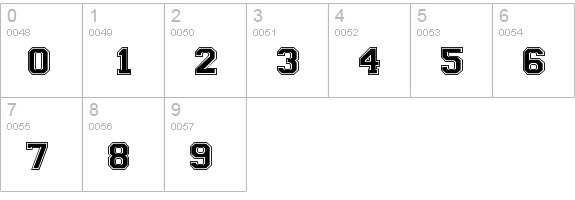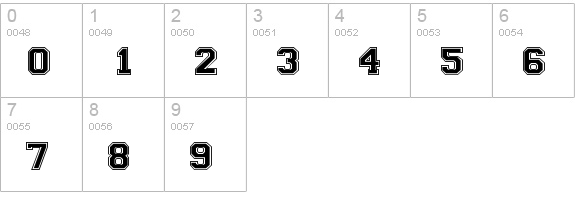
The Varsity font is a bold and dynamic typeface that exudes a sense of youthful energy and sporty flair. Its distinctive letterforms are reminiscent of classic varsity lettering, making it the perfect choice for projects related to sports, team spirit, and school pride. With its strong and commanding presence, Varsity font adds a touch of athleticism and professionalism to any design. What makes the Varsity font even more appealing is the fact that it is freely available to download at FontsMarket.com. This means that designers, students, and enthusiasts can enjoy the benefits of this remarkable font without any cost or restrictions. Whether you're working on a school project, creating sports-themed graphics, or designing a logo for a sports team, Varsity font is a valuable asset that will make your work stand out. Featuring clean lines, sharp edges, and bold strokes, Varsity font effortlessly captures attention and conveys a sense of strength and determination. Its versatility allows it to be used in various contexts, such as posters, banners, apparel, and branding materials. Whether you want to evoke a sense of nostalgia for the classic varsity aesthetic or bring a modern twist to your designs, Varsity font has got you covered. With its extensive character set, Varsity font provides a wide range of options to express your creativity. From uppercase letters adorned with decorative serifs to lowercase letters with a sleek and modern look, this font offers endless possibilities for customization. Additionally, it includes numerals, punctuation marks, and special characters, ensuring that you have all the tools you need to create visually stunning and cohesive designs. Whether you're a professional designer or a student working on a project, Varsity font is a must-have in your typography collection. Its bold and sporty style, combined with its availability as a free download at FontsMarket.com, makes it an unbeatable choice. So, go ahead and unleash your creativity with Varsity font – the perfect companion for all your sports-related designs.